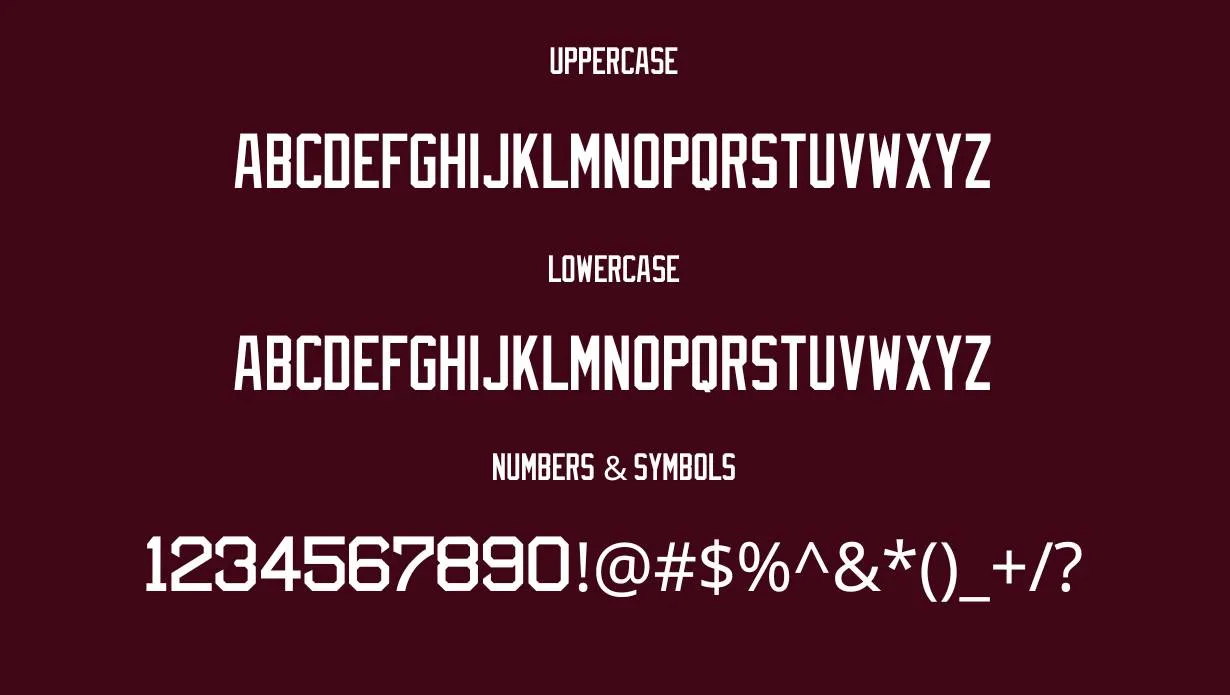
The MLB Red Sox Regular Font reflects a bold and sporty vibe. Its strong, angular letters give off a sense of athleticism and energy. This font is often used in sports-related designs or event promotions, evoking a feeling of team spirit and power.
Its bold appearance makes it stand out, making any text look dynamic and robust. Whether used in posters or sports branding, this font adds a sense of vigor and strength to the writing.